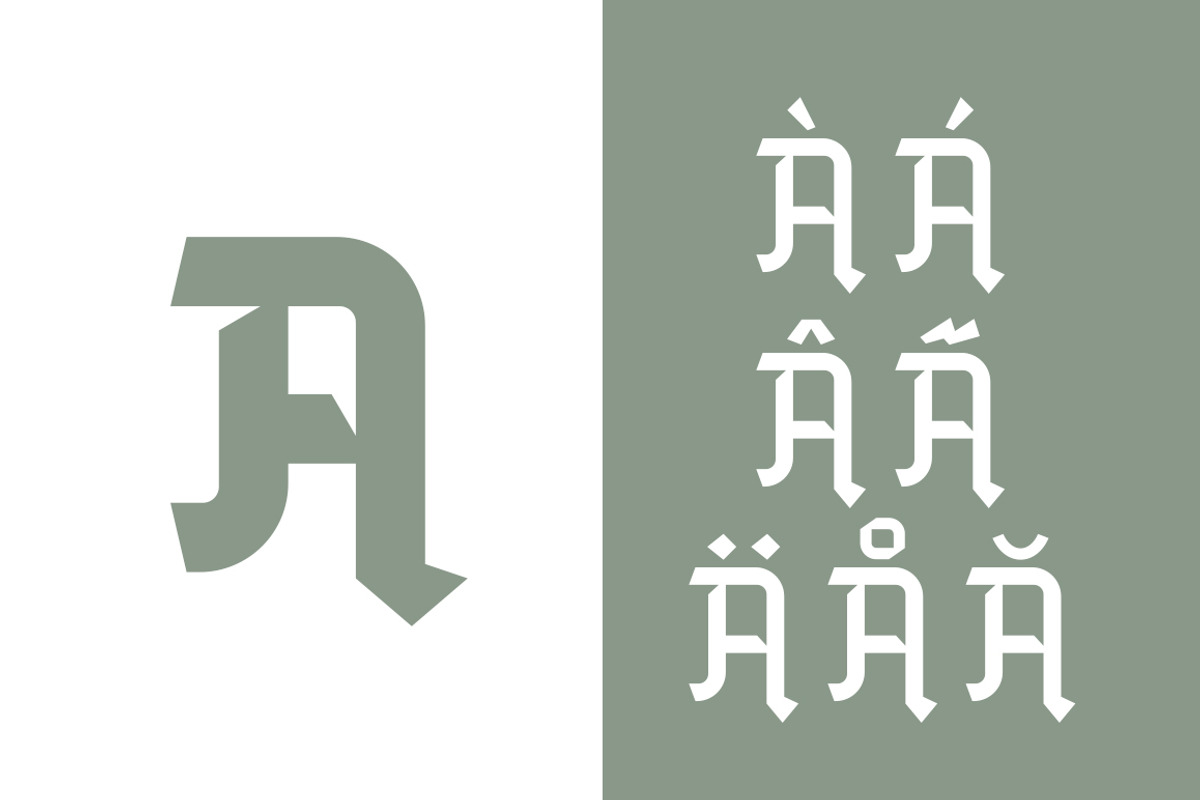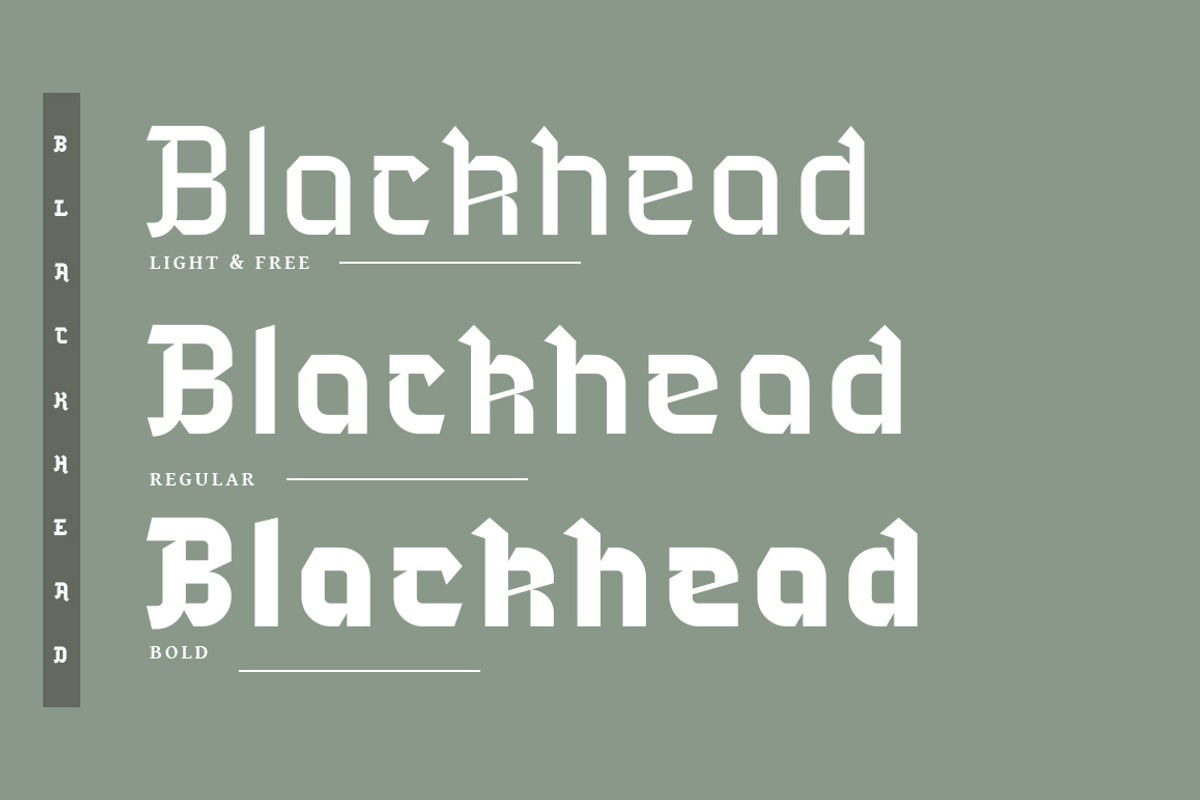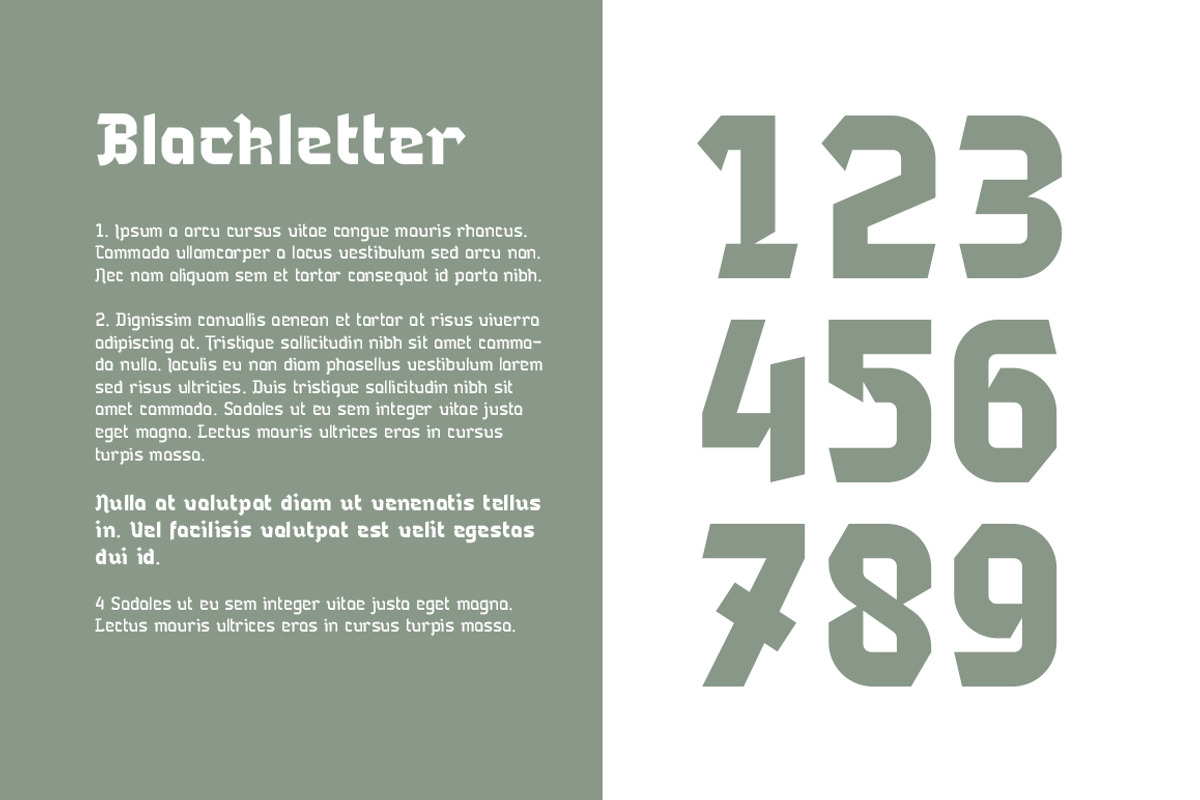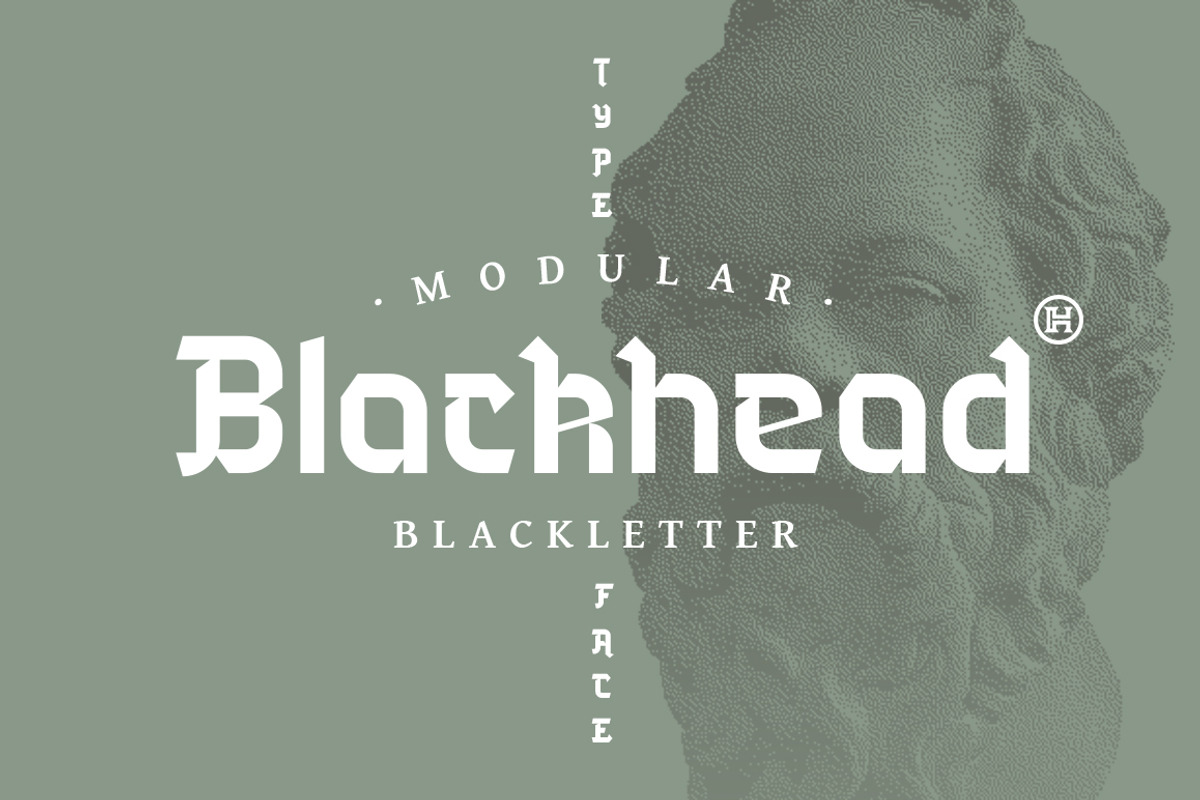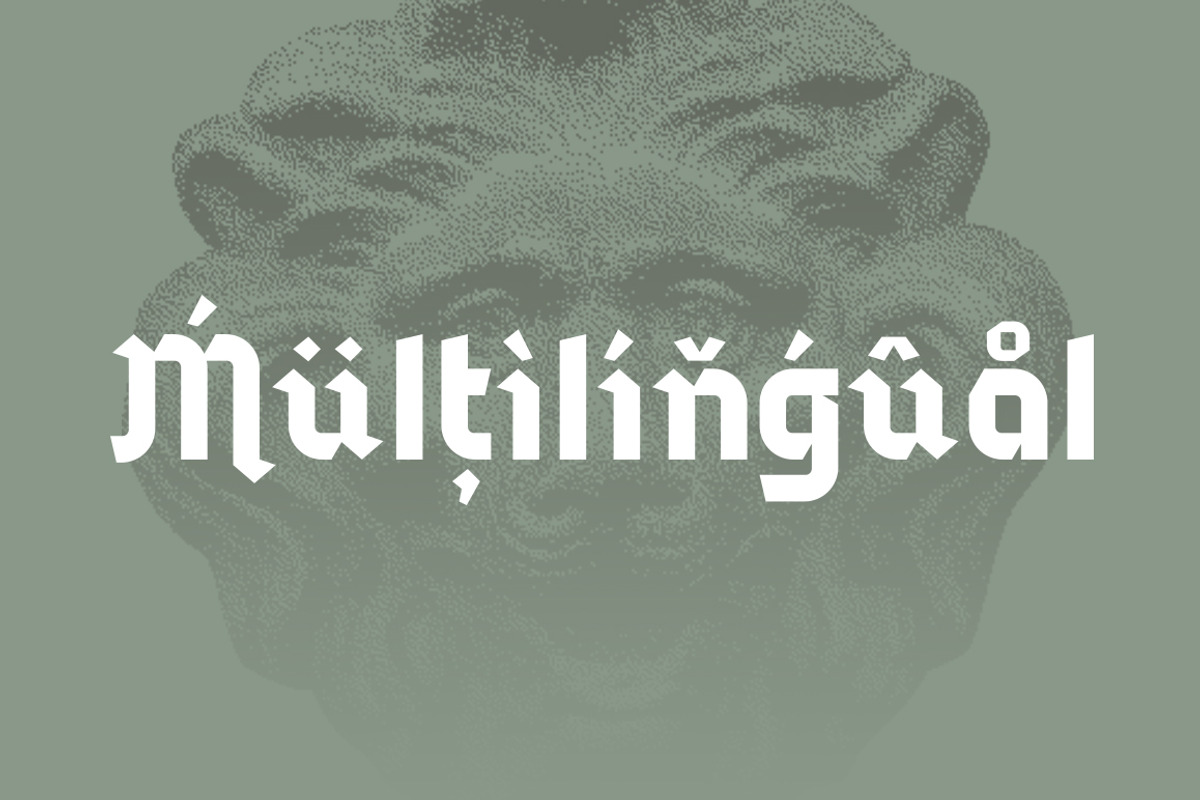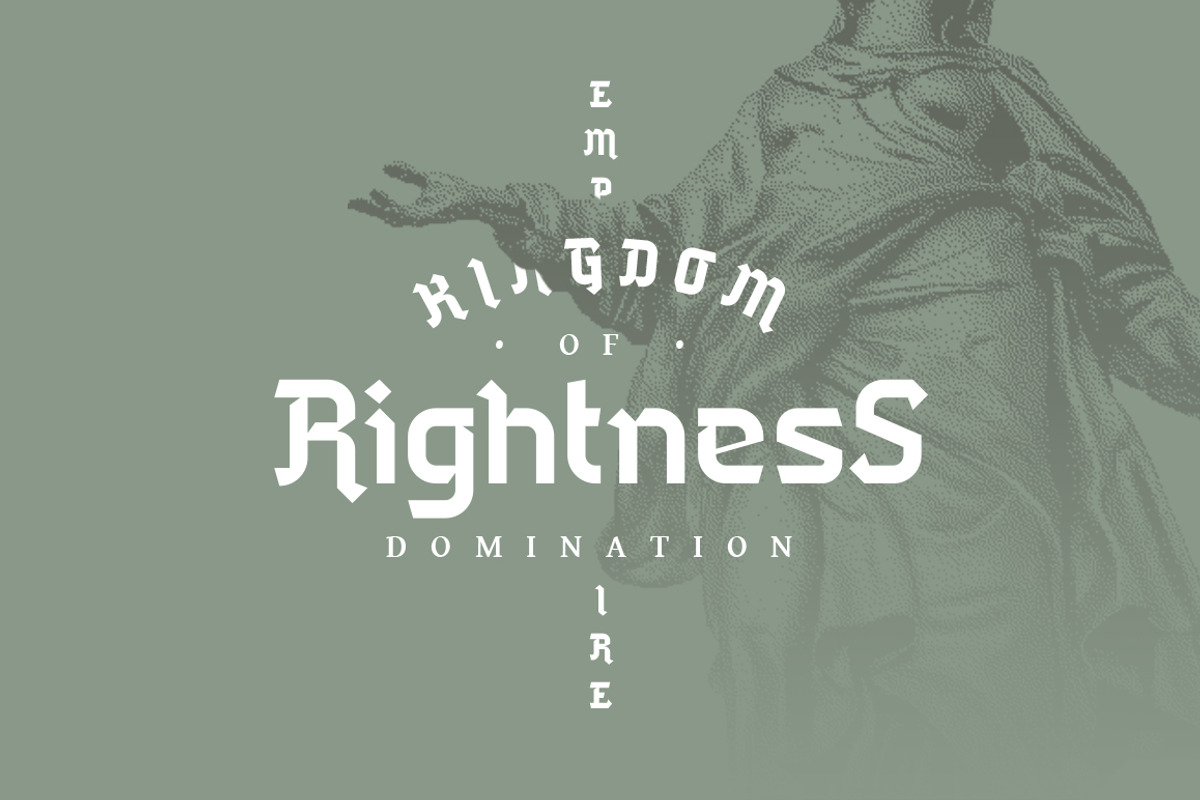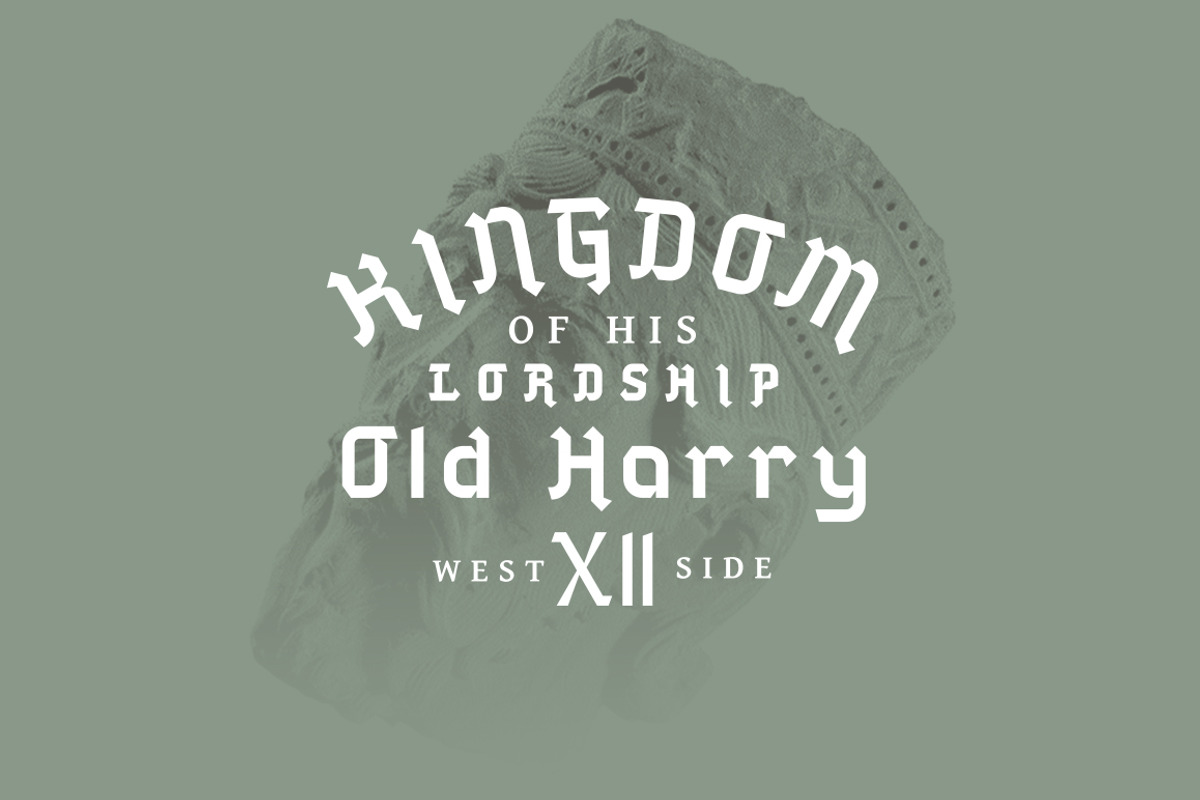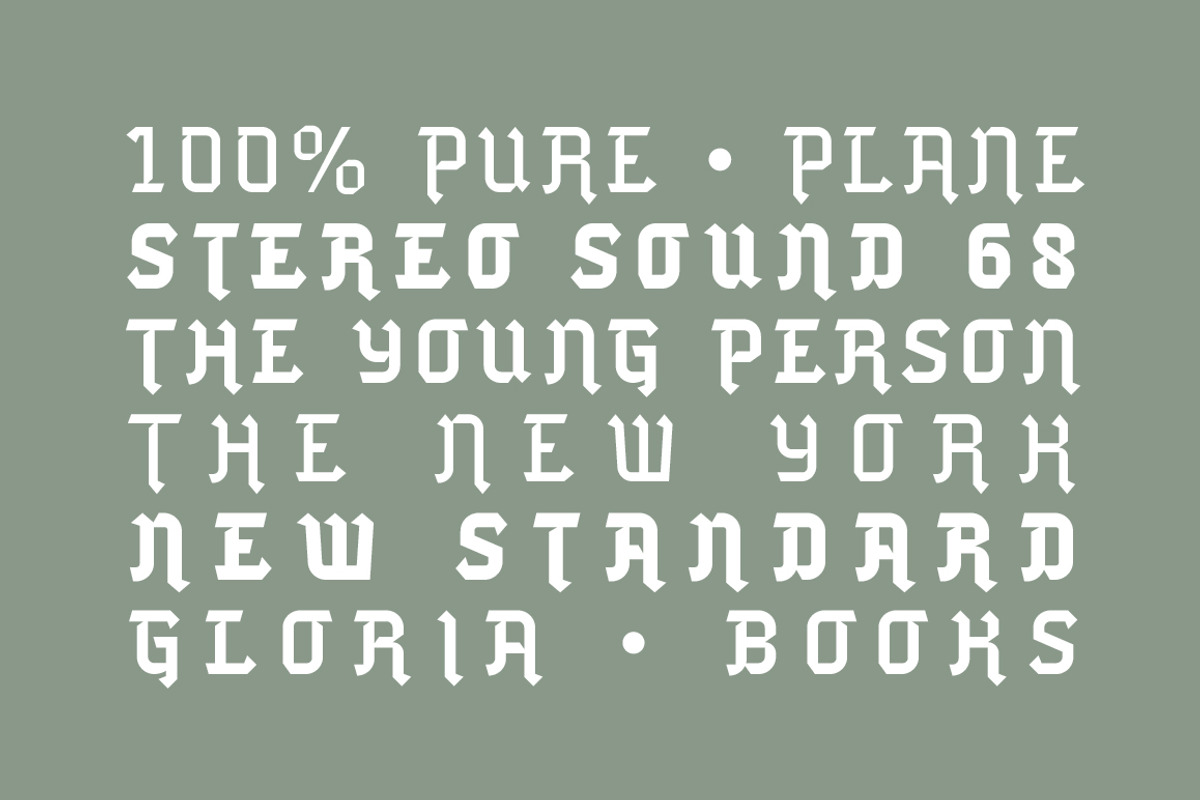
Blackhead Typeface | Font
BLACKHEAD is a three blackletter font family inspired by Gothic script with modern, round letter upper parts. Blackhead has three weights, Light, Regular and Bold, all big, bold decorative faces. The characters are thick, full in saturated black forms with thin crossbars for high stroke contrast and slightly decorated angled tips, terminals and caps. Each weight has 252 glyphs, uppercase and lowercase and extensive Latin script support. This family is the perfect combination of the antiqued Gothic script and contemporary lettering and perfect for eye-catching designs, such as posters or logo design.
Extensive Latin script language support
Upper and lowercase font
- The characters are thick, full in saturated black forms with thin crossbars for high stroke contrast and slightly decorated angled tips, ter
- Each weight has 252 glyphs, uppercase and lowercase and extensive Latin script support.
- Blackhead Light
- Blackhead Regular
- Blackhead Bold